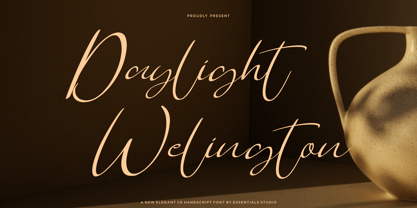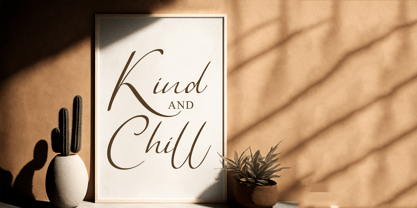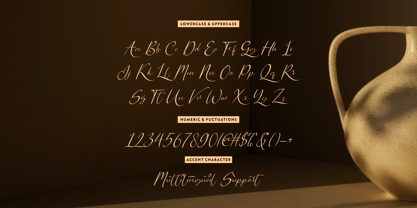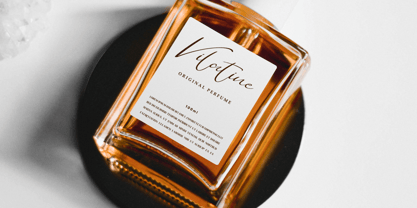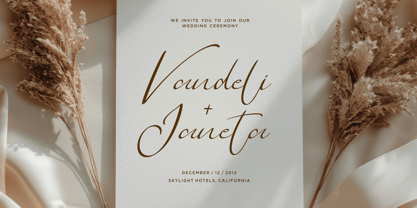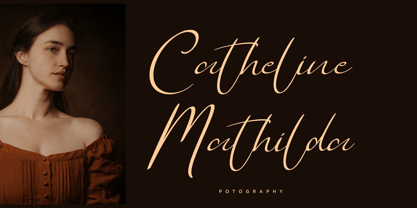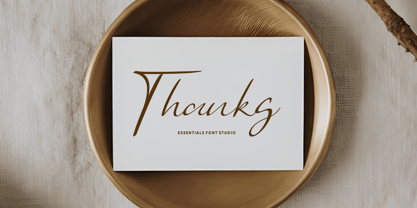
Daylight Welington
by Essentials Studio
The Daylight Welington Font Family was designed by Bagus Panji Asmoro and published by Essentials Studio. Daylight Welington contains 1 styles. More about this family
Introducing Daylight Welington, a creation of Essentials Studio that effortlessly intertwines elegance and functionality. This gracefully scripted font exudes an air of infinity that is simply spellbinding. With a versatility that makes it ideal for a range of applications, from the delicate art of wedding personalizations to the tactical precision of commercial branding or crafting projects, Daylight Welington offers a seamless blend of style and utility. Embrace the endless charm of this script font and elevate your projects to new aesthetic heights.
Designers: Bagus Panji Asmoro
Foundry: Essentials Studio